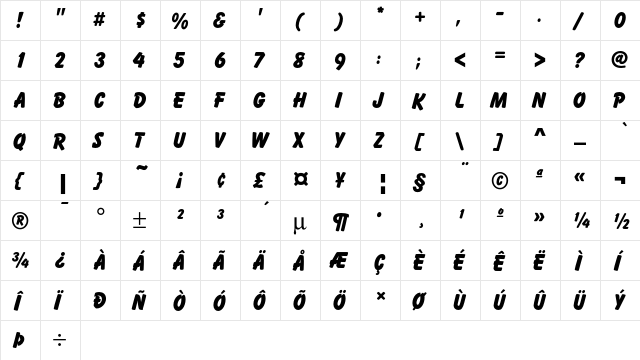
BalloonEF ExtraBold Font Preview
BalloonEF ExtraBold
Design Context for BalloonEF Typeface
BalloonEF is a composed and adaptable typeface that performs quietly and consistently across a wide range of design contexts. The heavy weight commands attention and anchors typographic hierarchies.